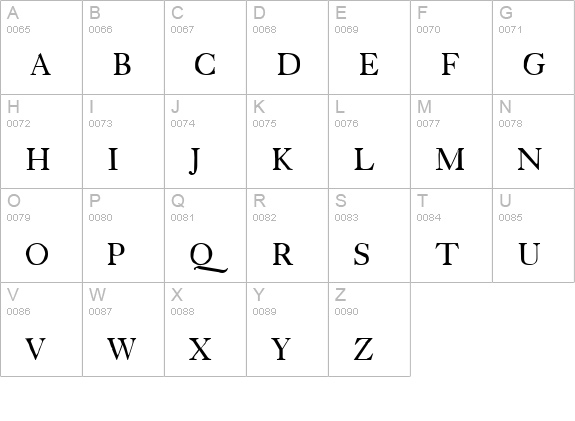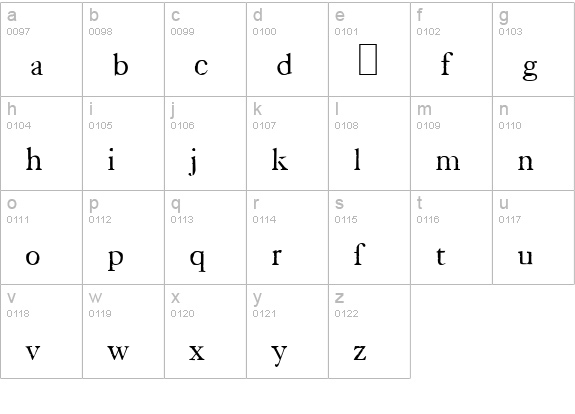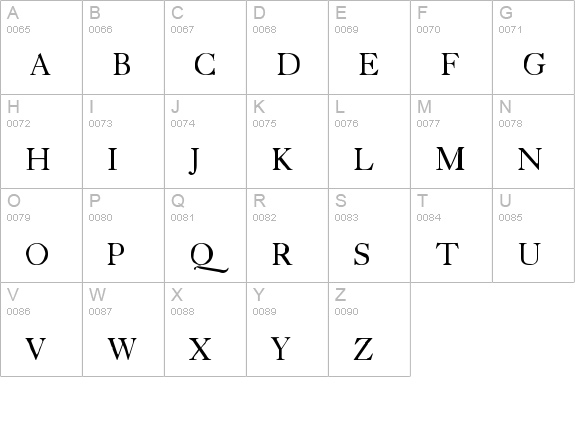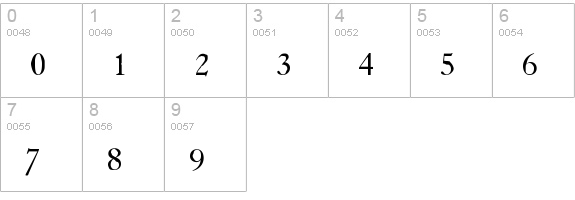
Old State House SAMPLE Font Details
Introducing Old State House SAMPLE font, a timeless and elegant typeface that pays homage to historical architecture and classic design elements. This font exudes sophistication and charm, making it perfect for projects that require a touch of vintage flair. Old State House SAMPLE font is a versatile choice that can be used for various purposes, including branding, packaging, invitations, and more. Its clean lines and graceful curves create a sense of refinement and grace, while the bold strokes add a touch of authority and strength. Best of all, Old State House SAMPLE font is completely free to download at FontsMarket.com. Whether you're a design professional or a hobbyist looking to elevate your projects, this font is a valuable addition to your collection. Embrace the timeless beauty and elegance of Old State House SAMPLE font in your next creative endeavor.